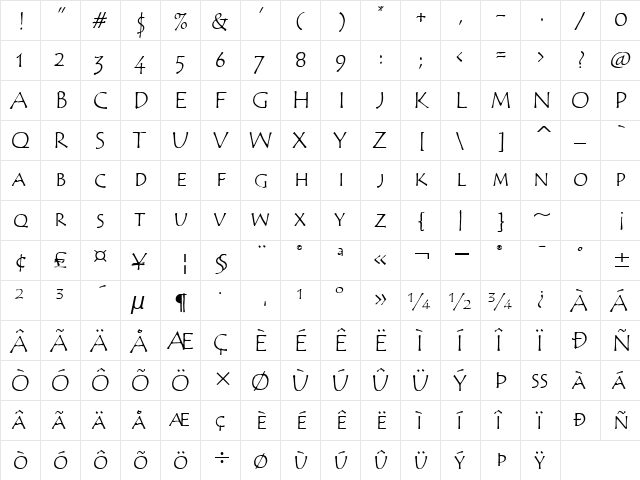
Tempus Sans SC ITC TT Regular
Design Context for Tempus Sans SC ITC TT Typeface
Tempus Sans SC ITC TT takes a measured approach to typography — its balanced proportions and neutral character make it a reliable workhorse for both digital and print work.
Pro Tip: Use Tempus Sans SC ITC TT in both headline and body roles to test its range before committing to a single application.